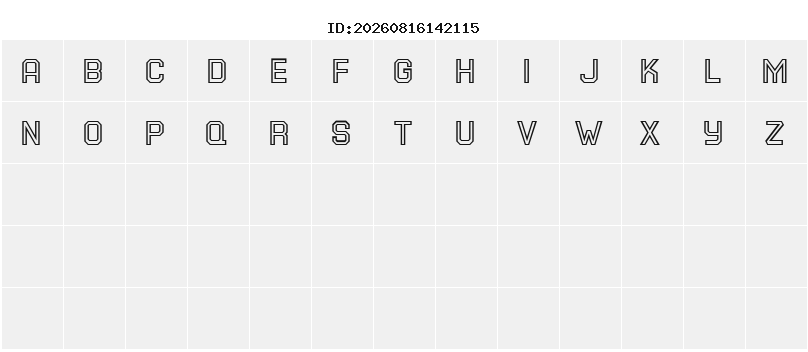
Square40Inline Preview
• Font Name: Square40Inline
• Full Font Name: Square40Inline-Regular
• PostScript Name: Square40Inline-Regular
• Character Count: 37
About Square40Inline.ttf
Square40Inline.ttf is a modern, elegant sans-serif font designed for ultimate readability and visual harmony. Perfect for branding, headlines, web design, and print materials.